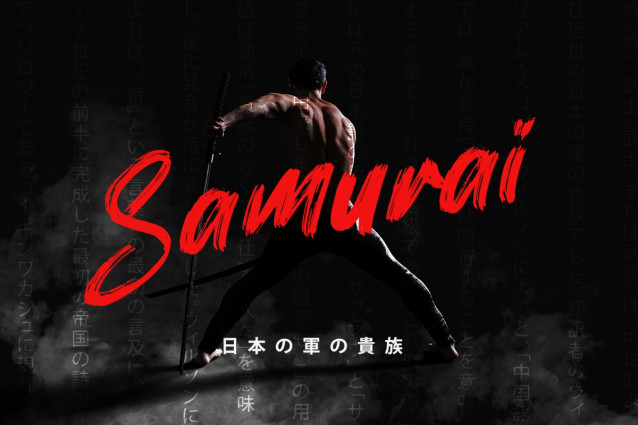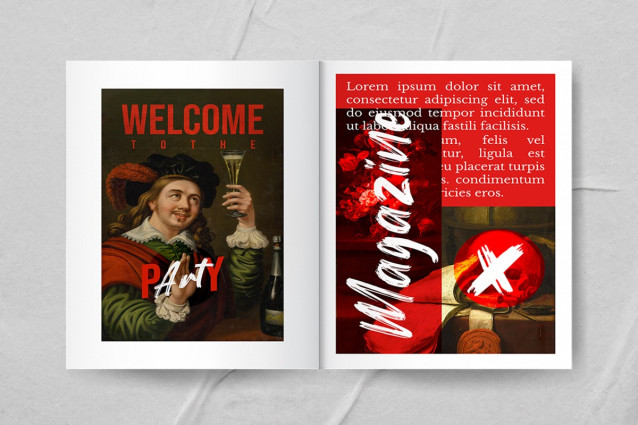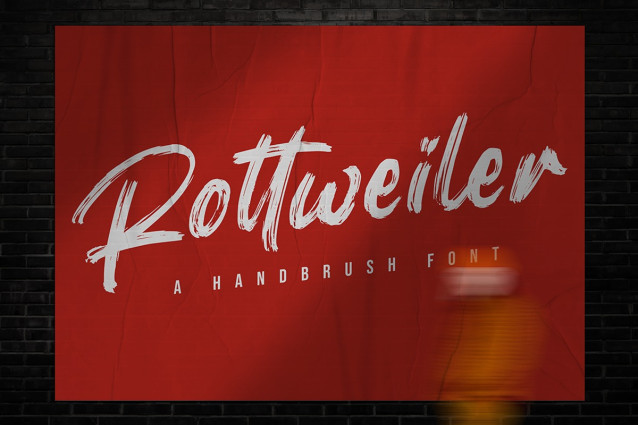
Rottweiler Brush Font
Rottweiler Brush Font is a unique brush font, perfect for use in modern design projects. This font has a slightly aggressive edge, and works well in displays for use in digital media.